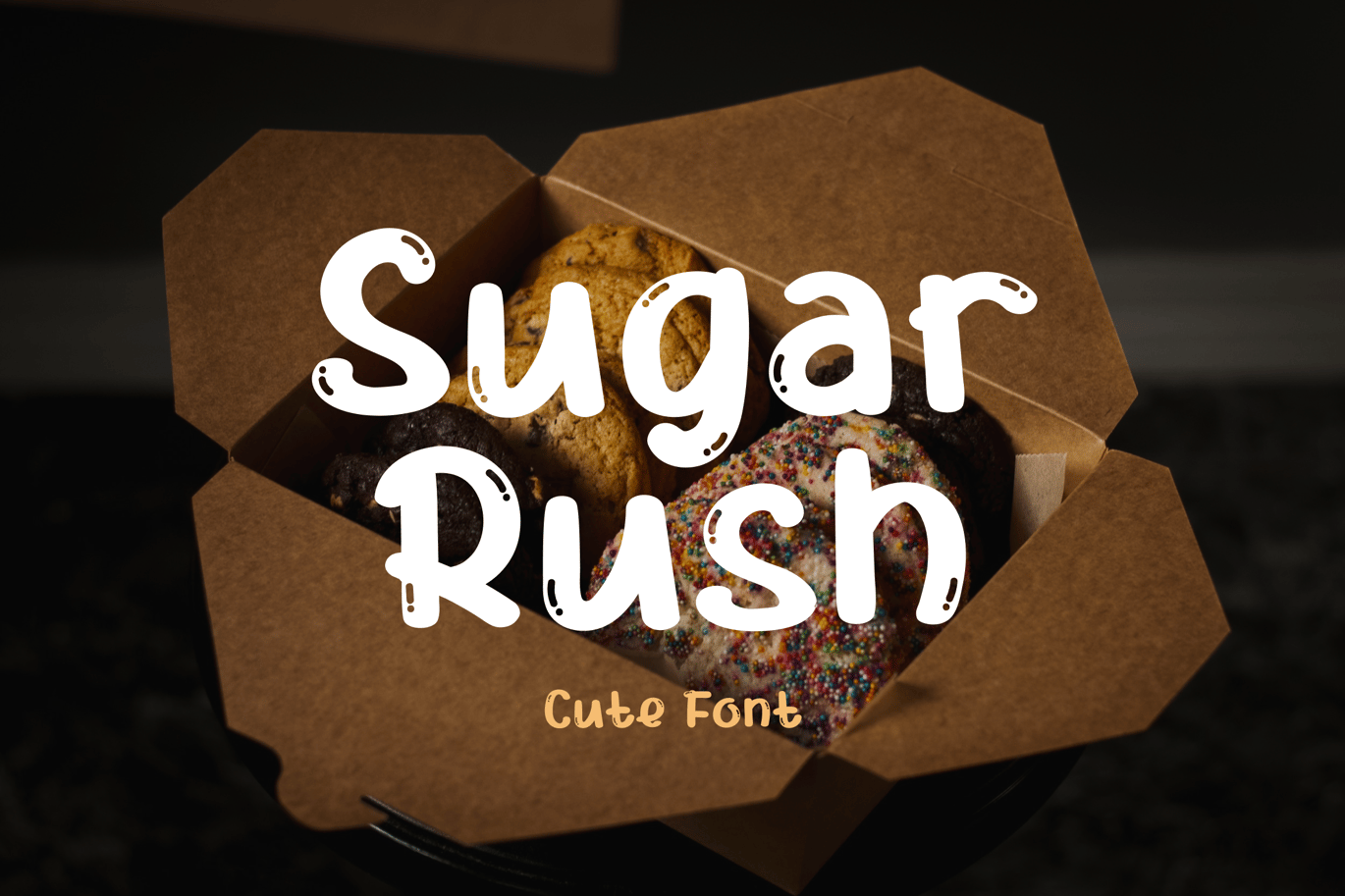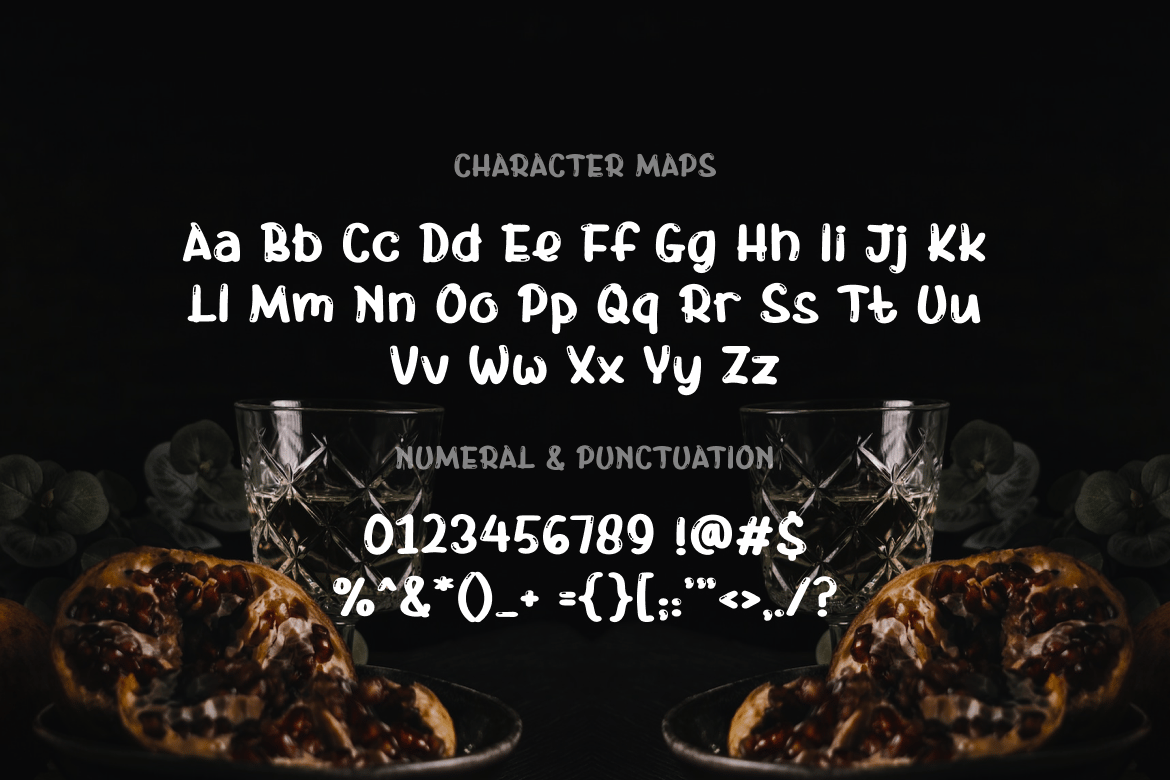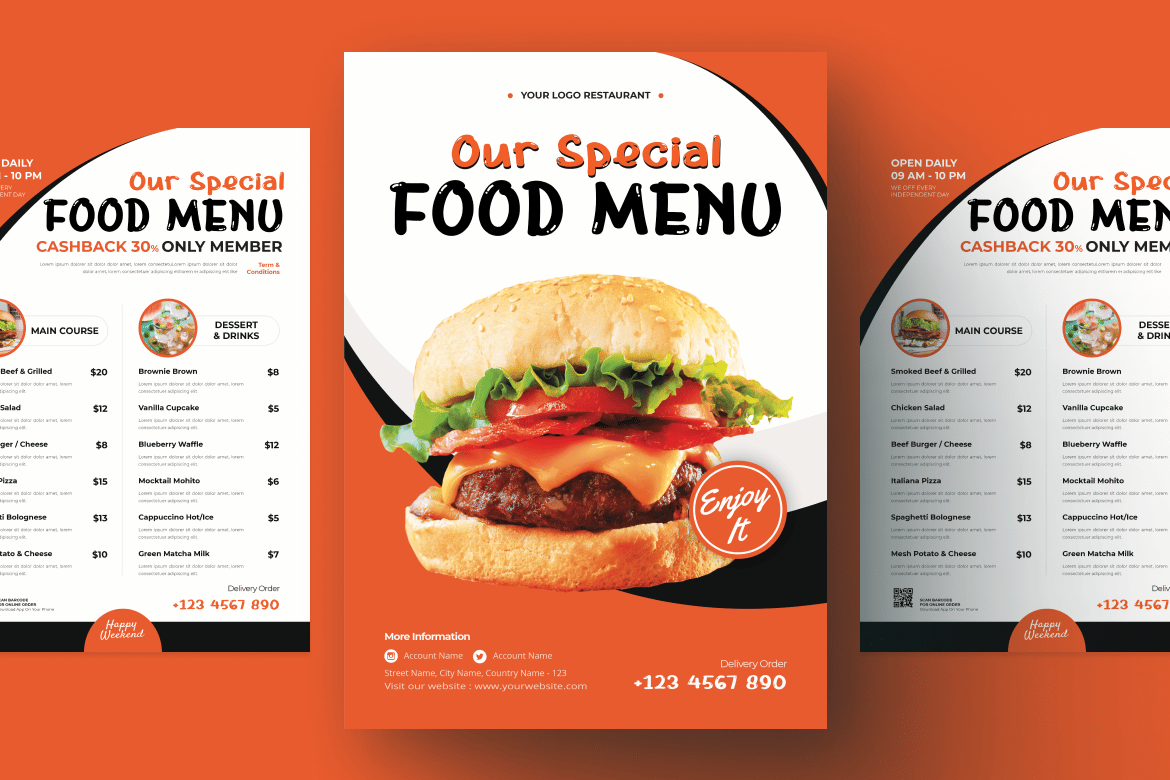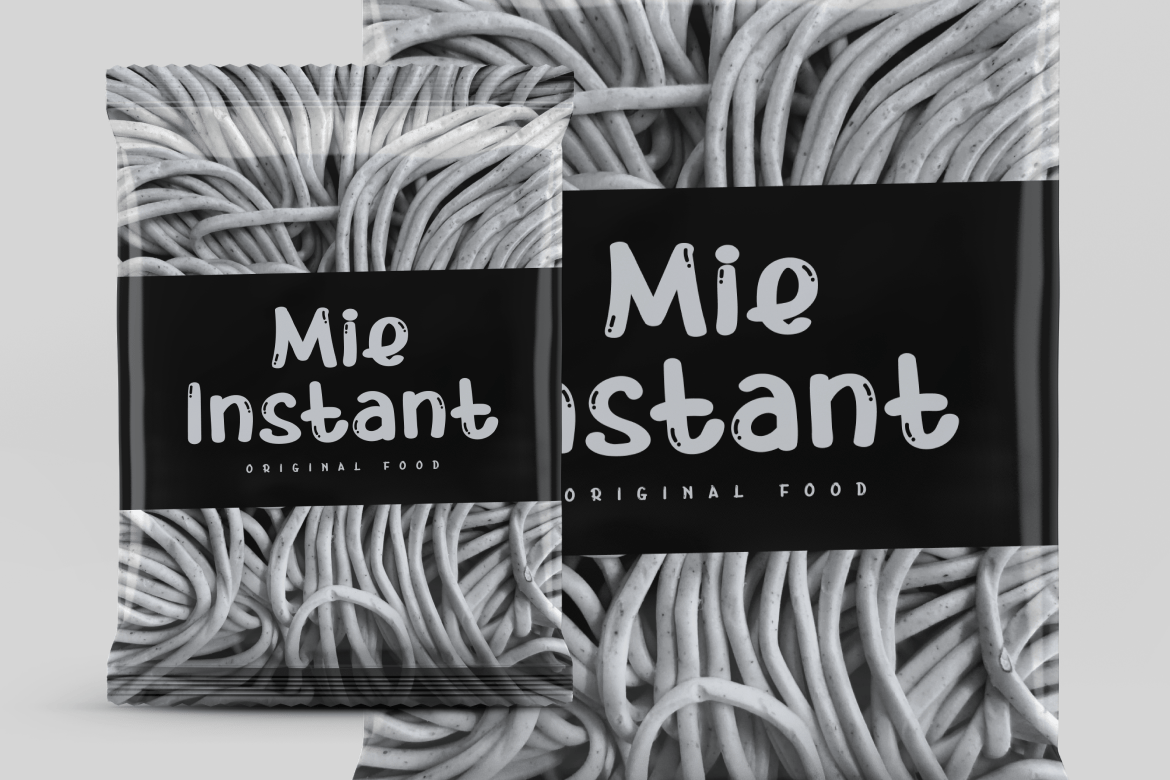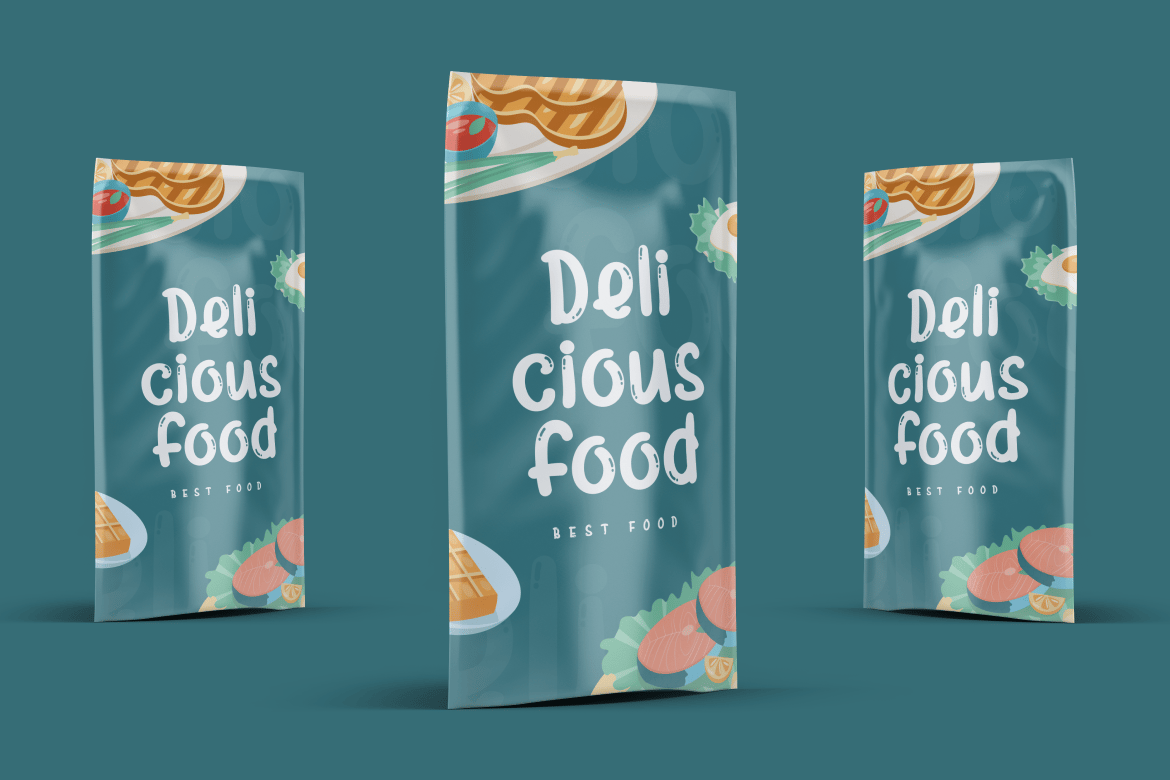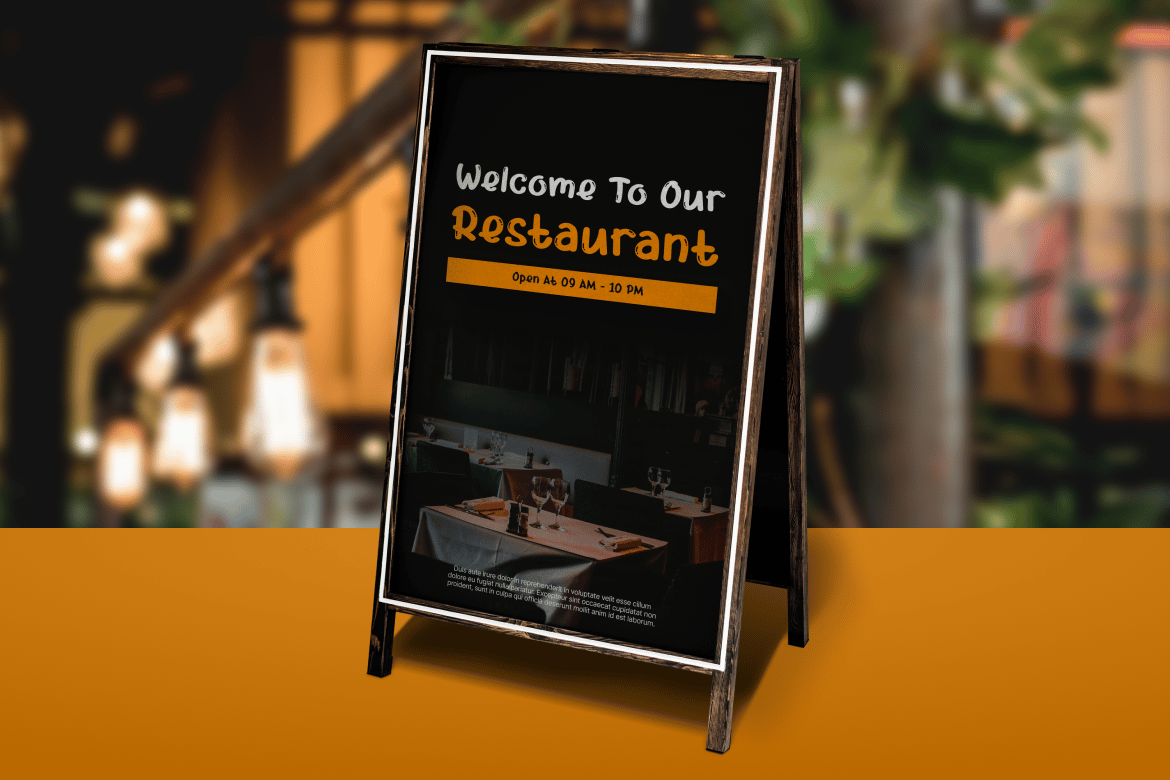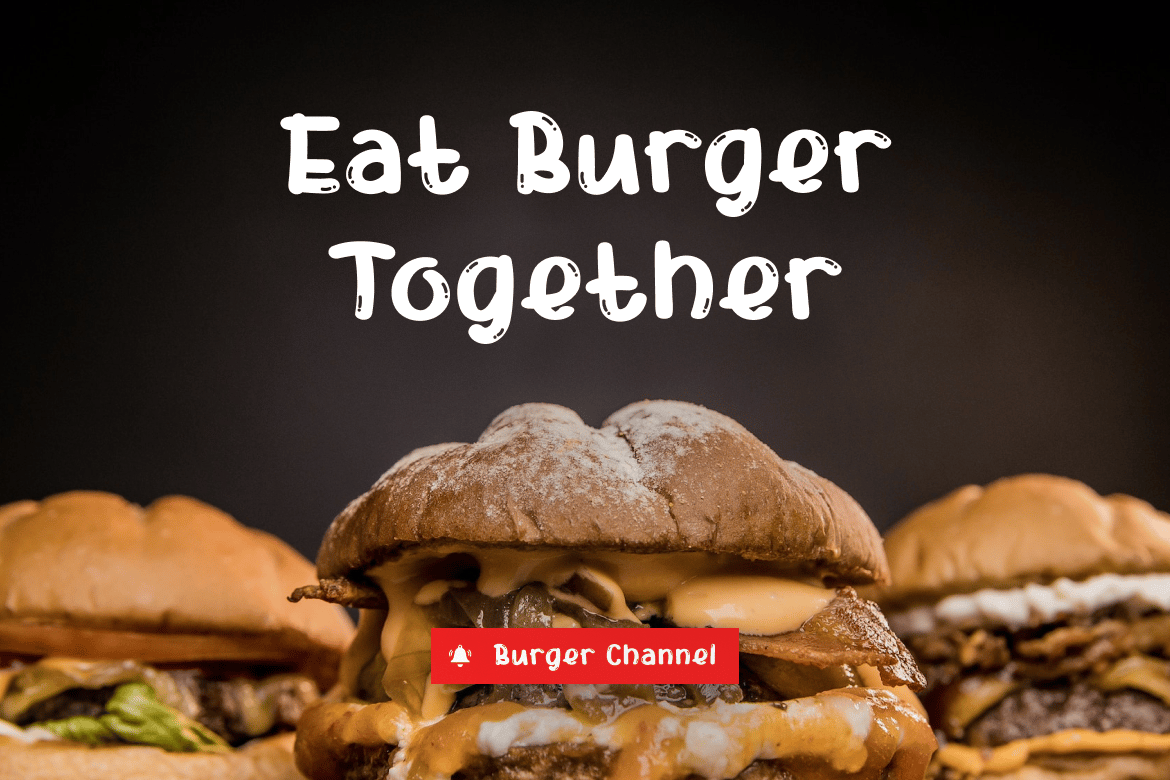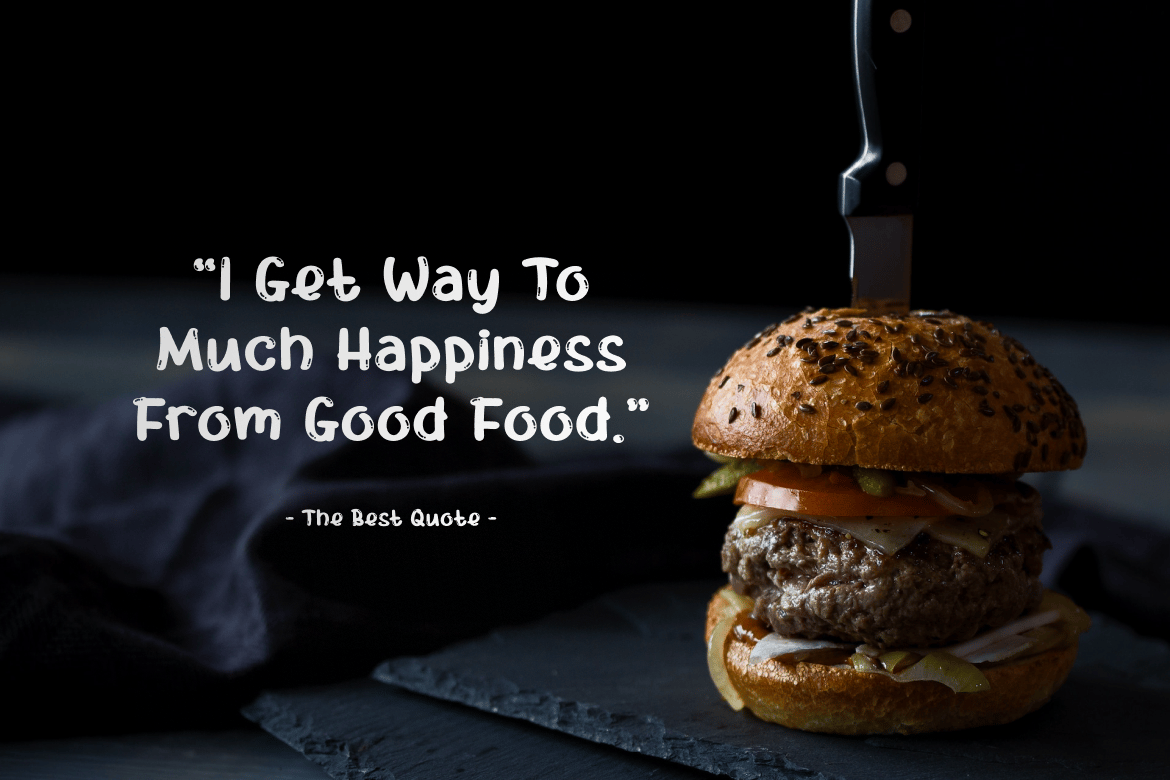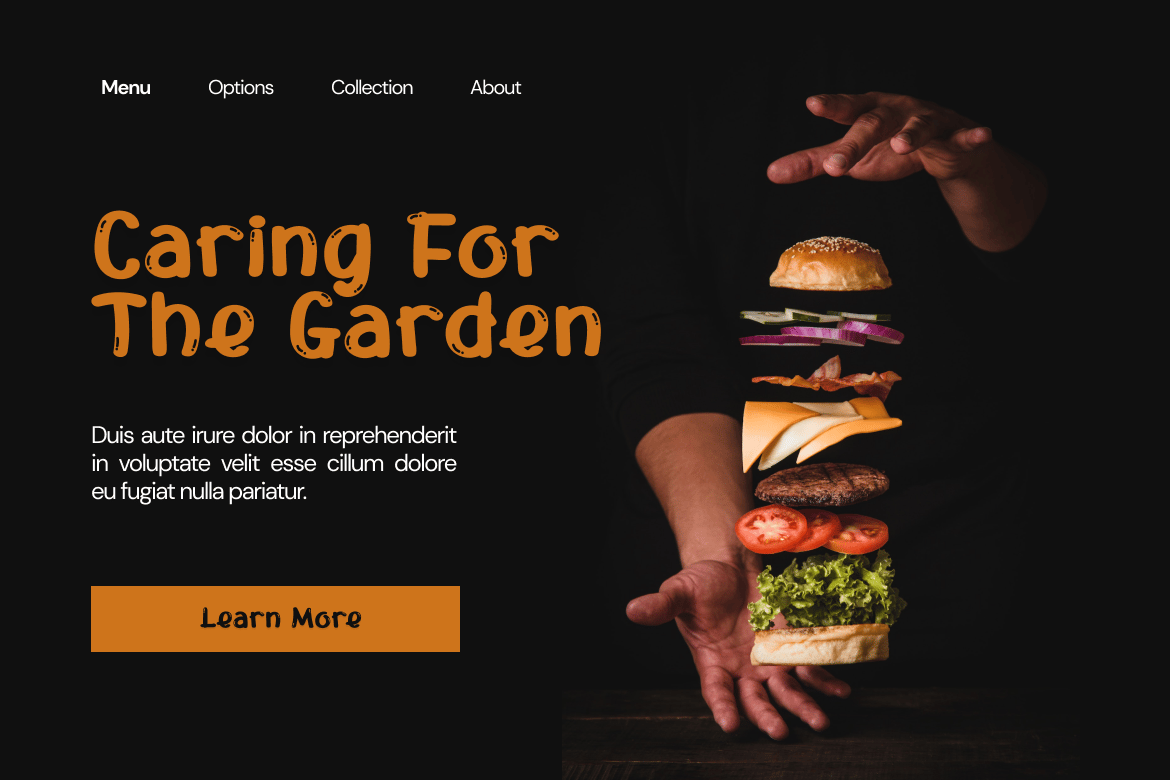
Sugar Rush – Cute Font
Introducing Sugar Rush, the perfect business font for those who want to add a touch of cuteness to their branding. This display font is perfect for Instagram, YouTube, and movie titles, as it’s a sans-serif font that is both playful and easy to read.
With its cute and charming design, Sugar Rush will definitely make your brand stand out from the crowd. Whether you’re creating social media graphics, logos, or promotional materials, this font will give your content an irresistible appeal.
But that’s not all – Sugar Rush also comes with plenty of natural foliage and floral elements, making it the perfect choice for brands with an organic and natural style. So, if you’re looking for a font that will give your brand a sweet and adorable vibe, Sugar Rush is the perfect choice for you.